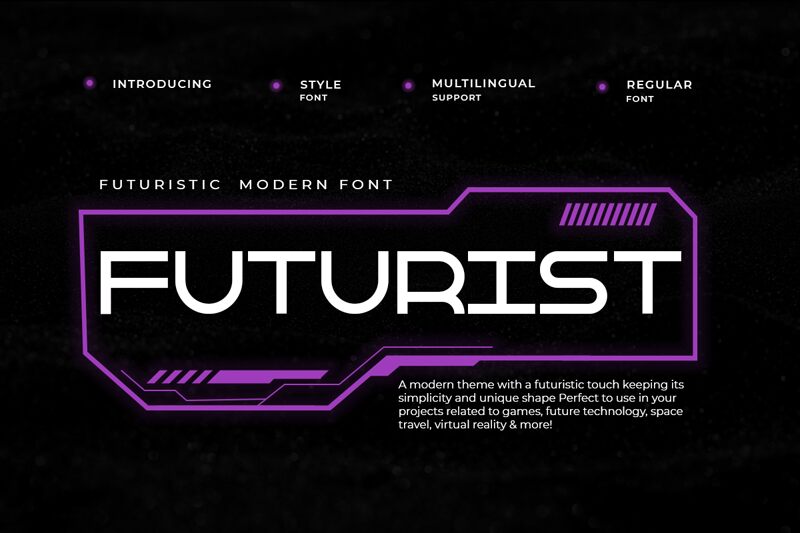
Futurist font is a techno typeface designed by Kong Font. This font is a perfect example of what creative designers can achieve through the smart use of geometric shapes and size combinations. The typeface outlines make it ideal for tasks that require modern and readable-looking typography. The techno font is usually used to stand out and capture the attention of the target audience. It should be noted the font only contains uppercase characters.
At first glance, Futurist might appear minimal and simplistic, but it carries a special amount of sophistication. Contrary to modern looks, an elegant stroke flow, and perfect terminals, this font is perfect for formal uses. Instantly pair it with a clean body font and for resources like branding, identity, logos, letterheads, and other stationaries.